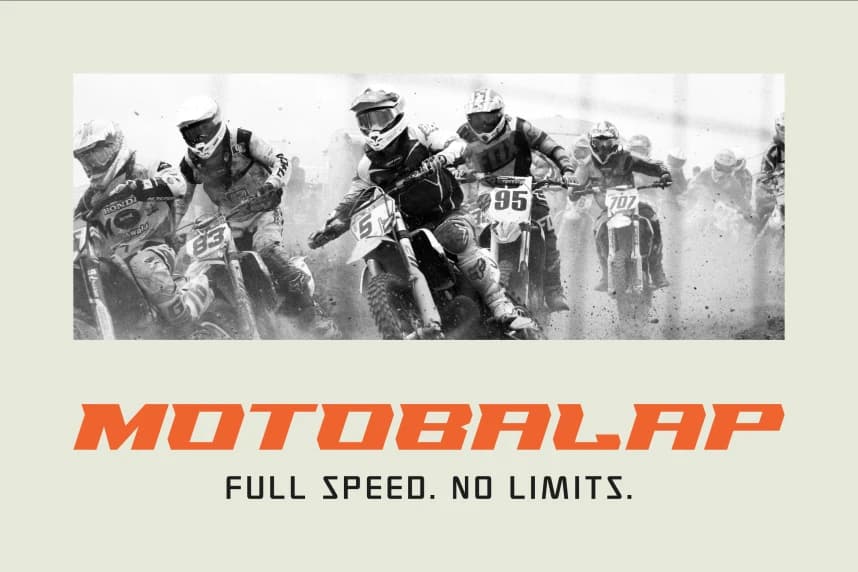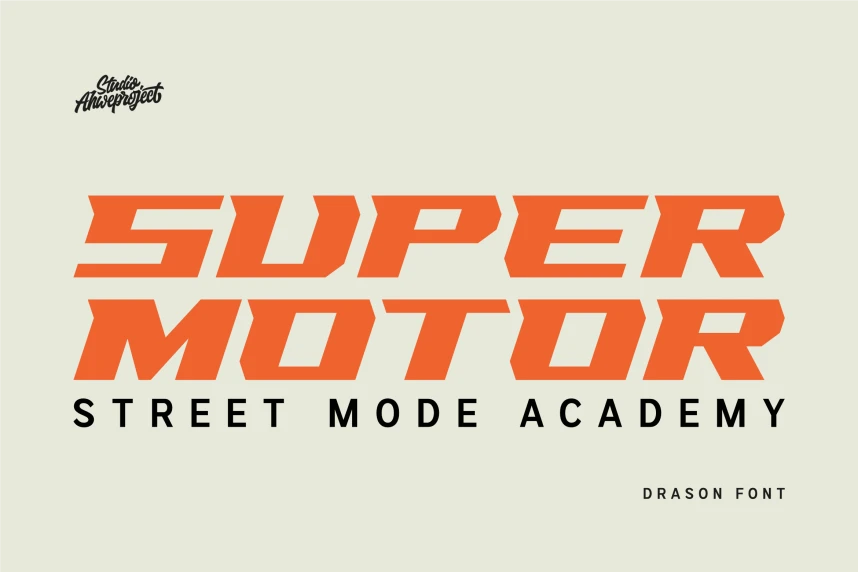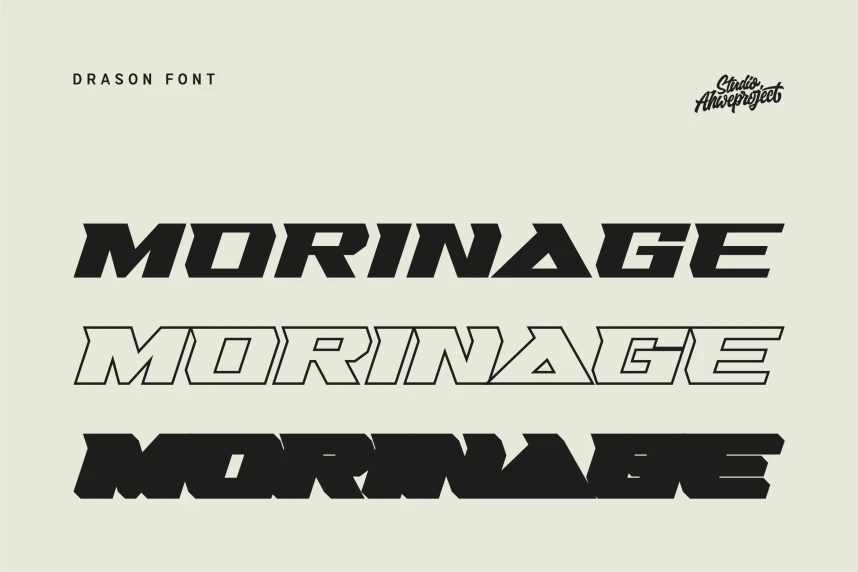
Drason Font
Drason Font is a bold all-caps sport font built to deliver strong impact and instant attention. Featuring sharp angles, aggressive shapes, and a modern athletic style, this typeface is perfect for sports branding, esports logos, racing posters, gym designs, automotive projects, and powerful YouTube thumbnails.